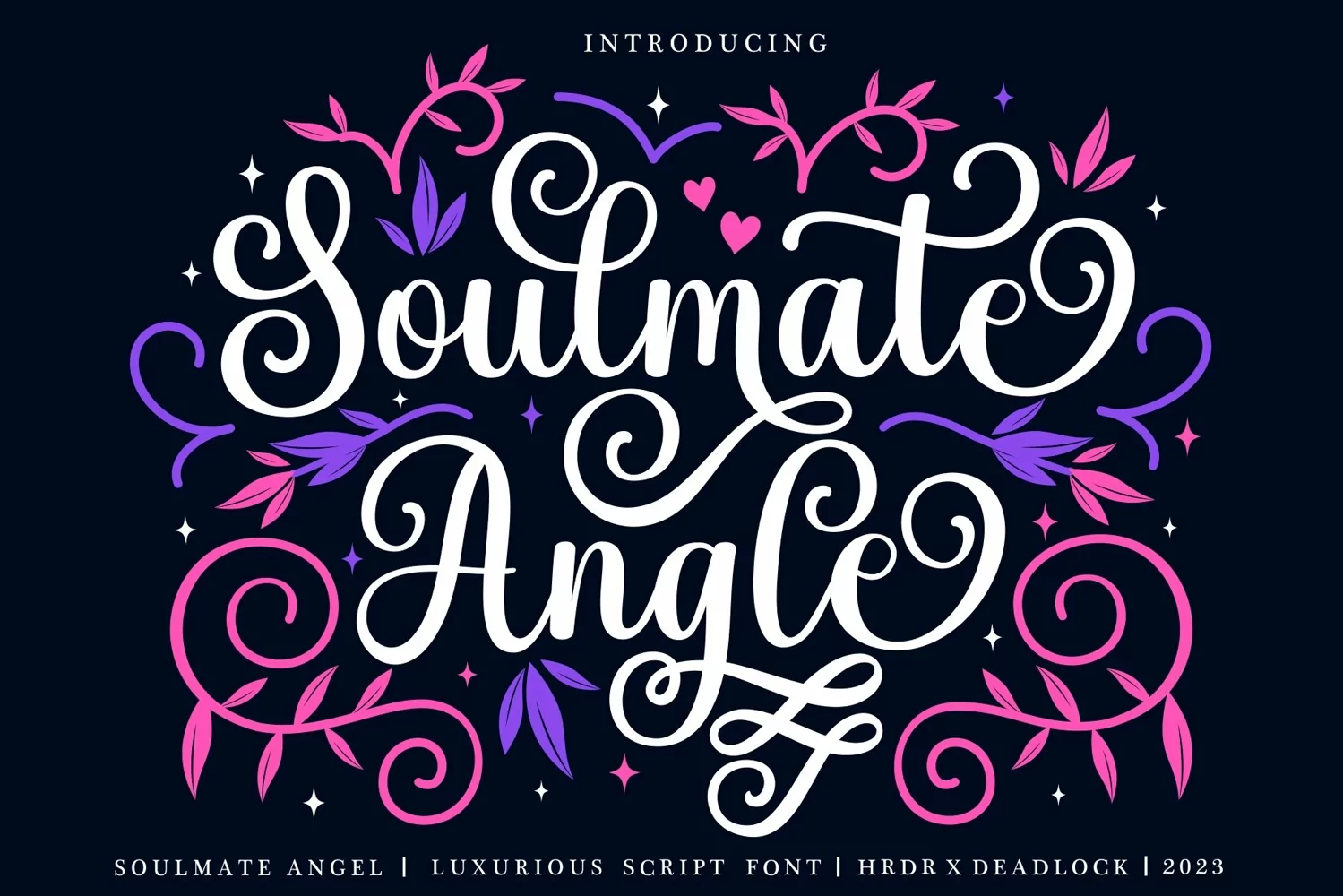
Soulmate Angle - Luxurious Calligraphy Script Font
Soulmate Angle Font is a Luxurious Modern Script Font font.
It's perfect for branding, wedding invitations, photography, Neon Sign, bloggers, logos, greeting cards, Logo, Quotes and more.
Font Features :
- numeric & Multilingual support
- Stylistic Alternates with (Ss01, Ss02, Ss03, Ss04, sS05 and Ligatures)